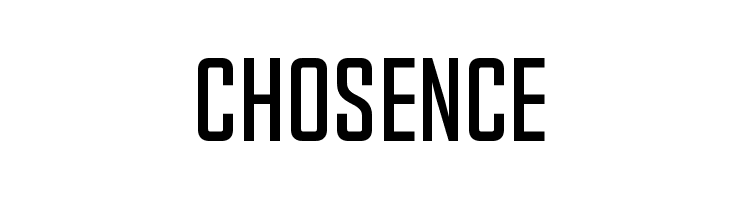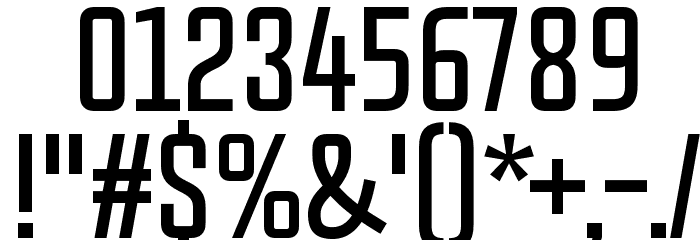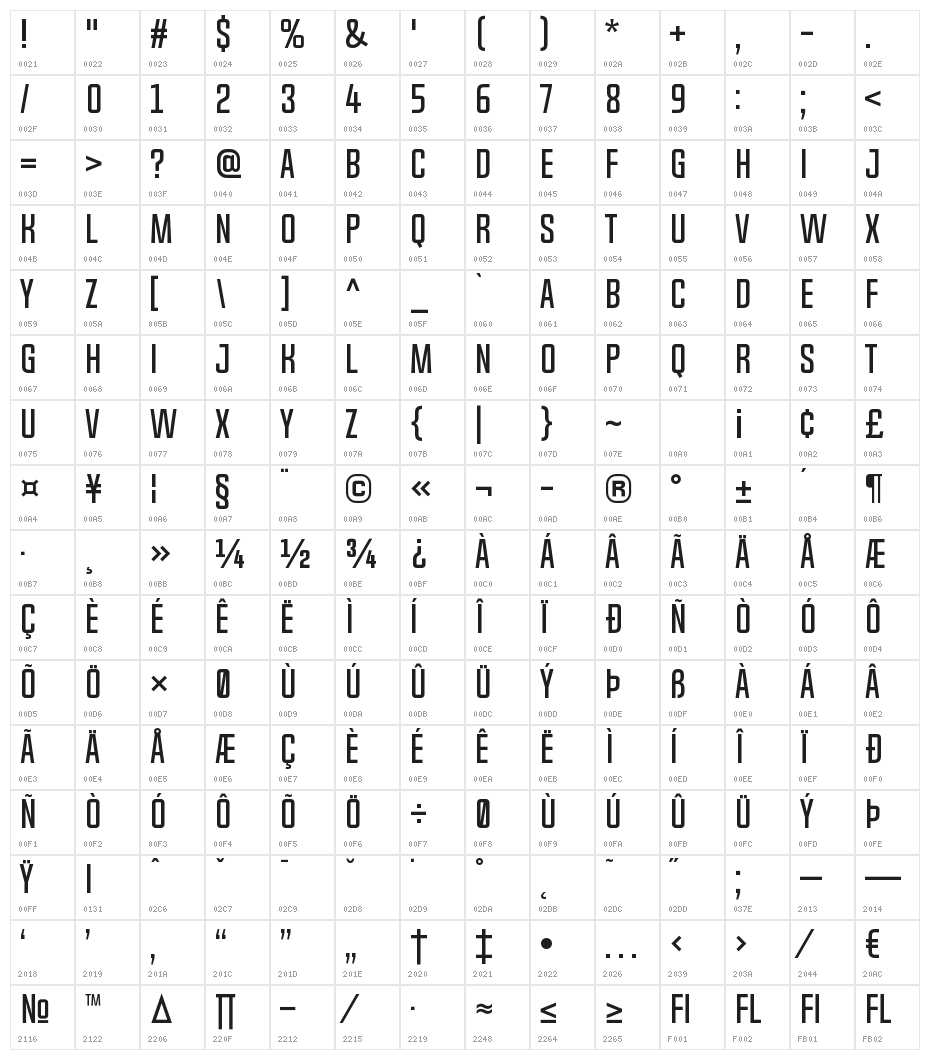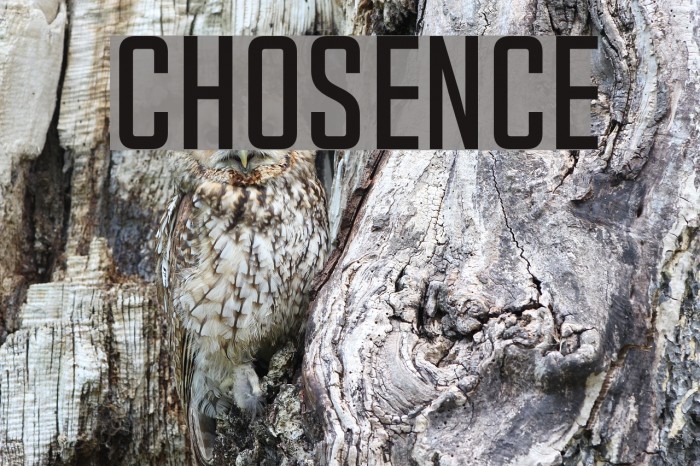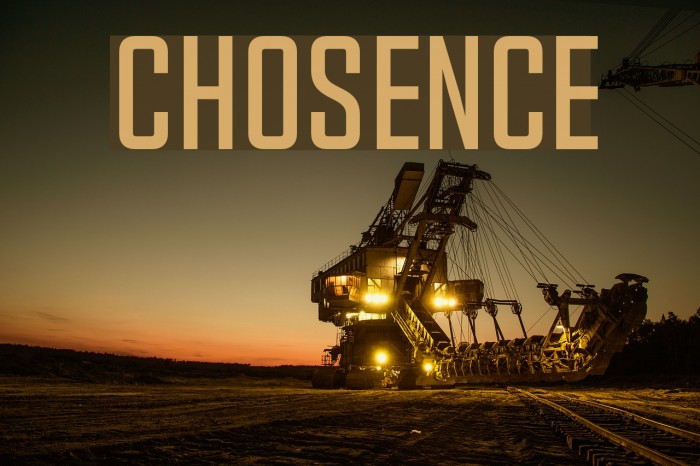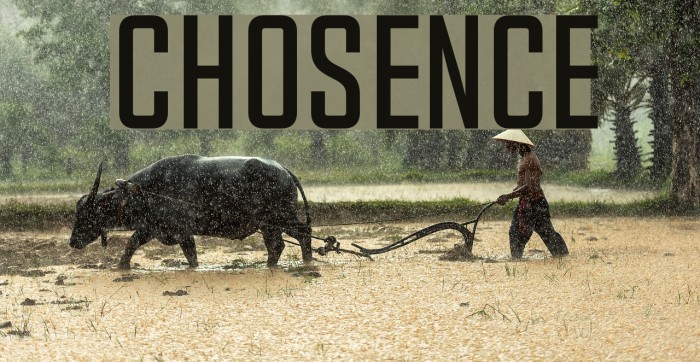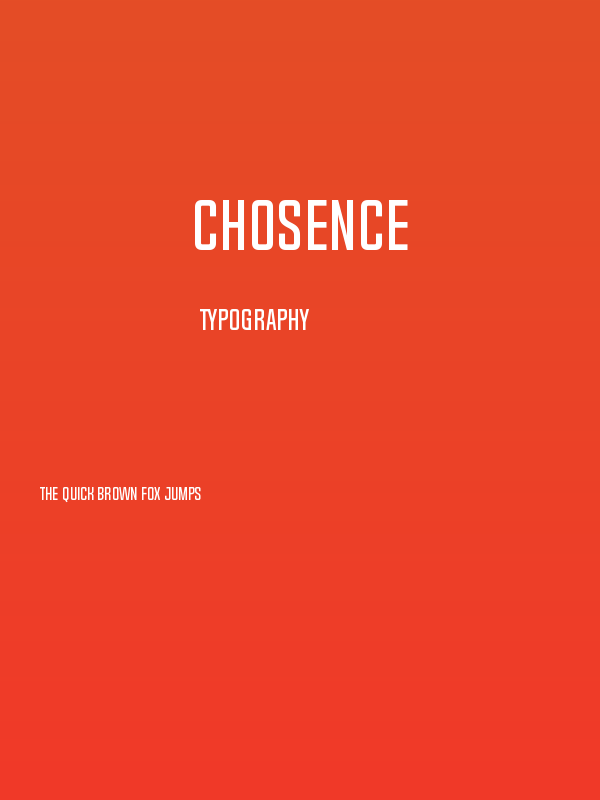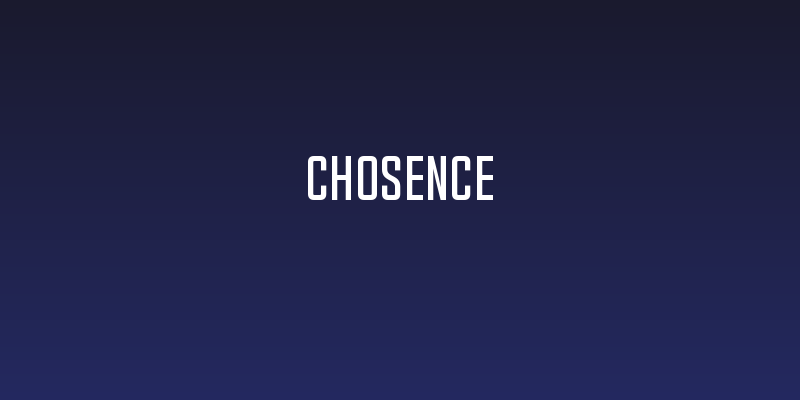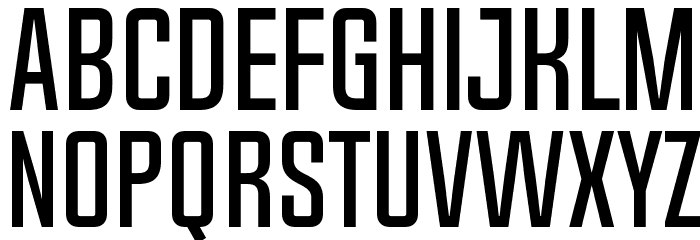
Chosence Font
Chosence Description
This font features a bold and modern sans-serif design with clean, straight lines and a geometric structure. The characters are tall and narrow, giving them a condensed appearance that maximizes vertical space. The uniform stroke width throughout the characters provides a consistent and cohesive look. The uppercase and lowercase letters maintain a similar style, ensuring readability and a professional aesthetic. The numerals are clear and distinct, matching the overall style of the alphabet. Special characters are included, maintaining the same design principles, making this font versatile for various applications.
| Proposed Projects | Ideal for branding, advertising, headlines, and digital media where a modern and professional look is desired. |